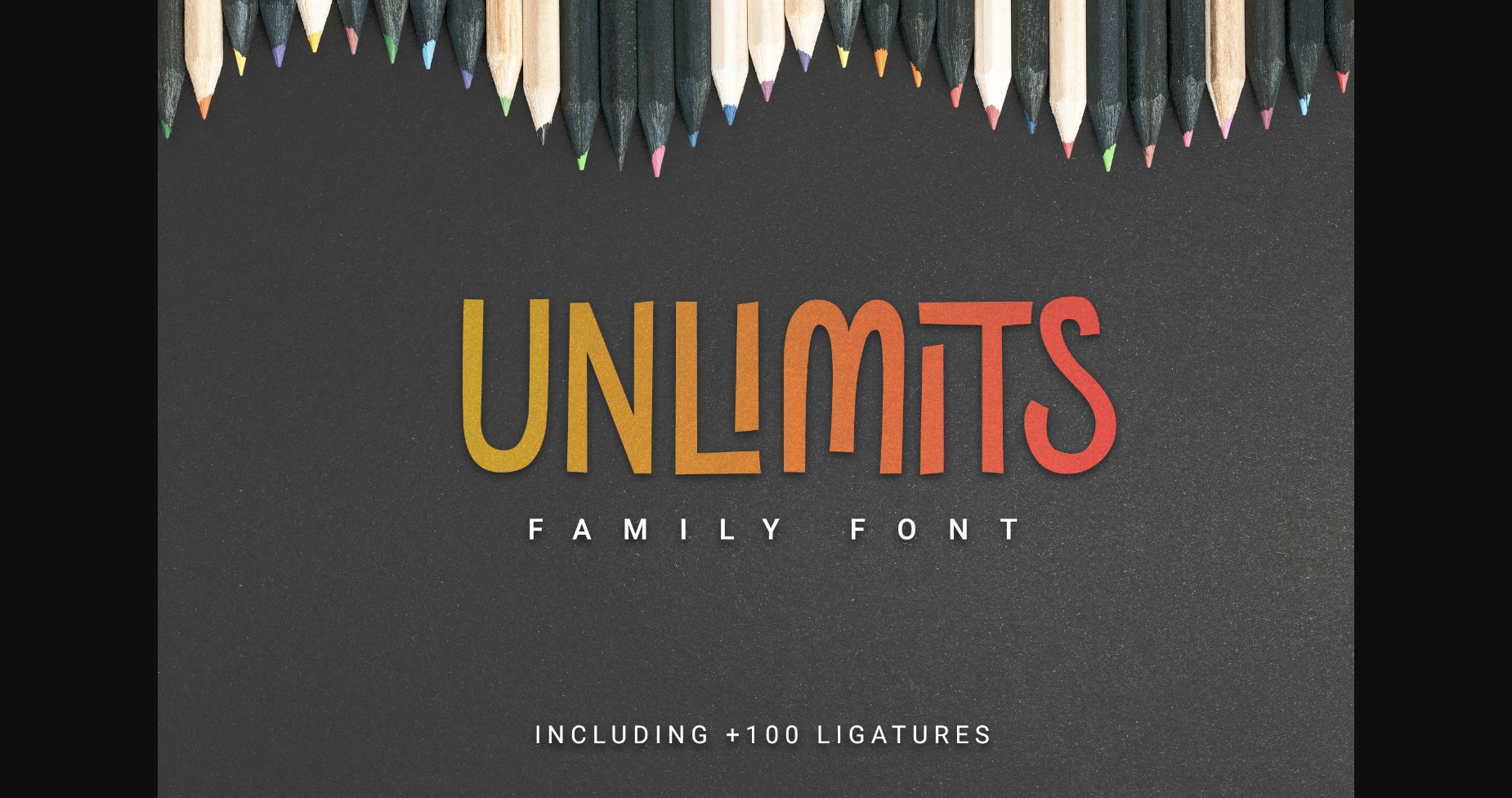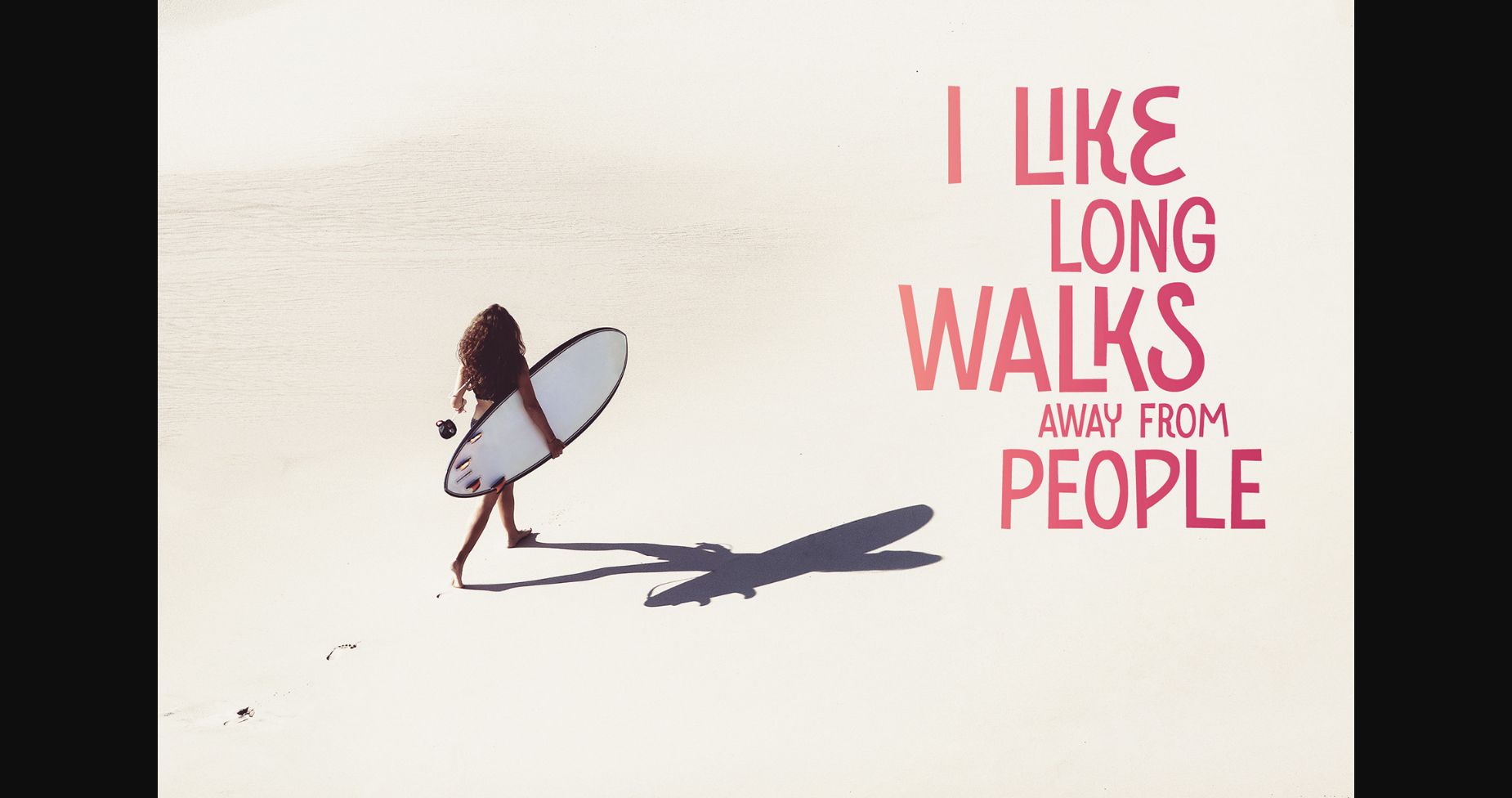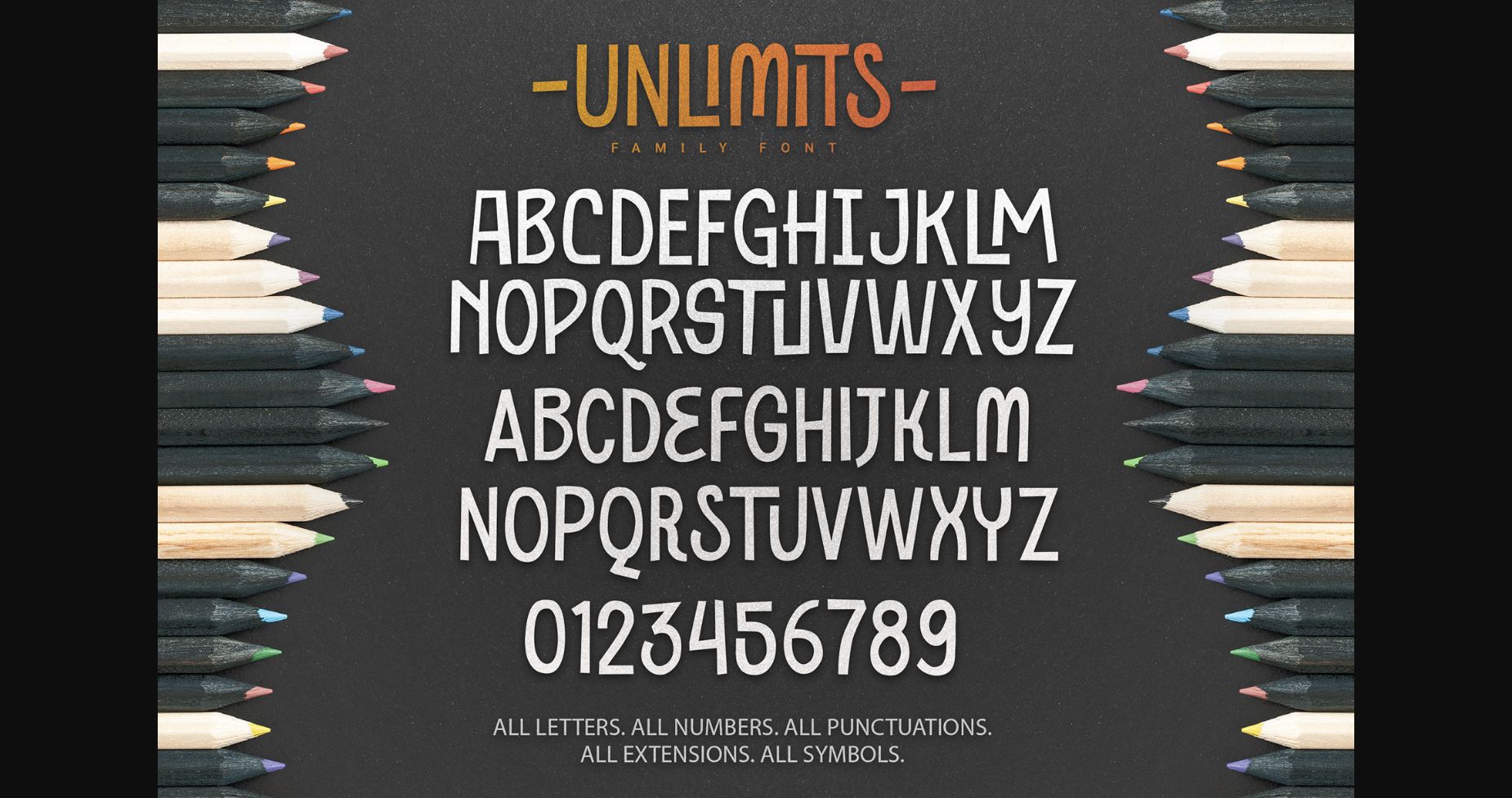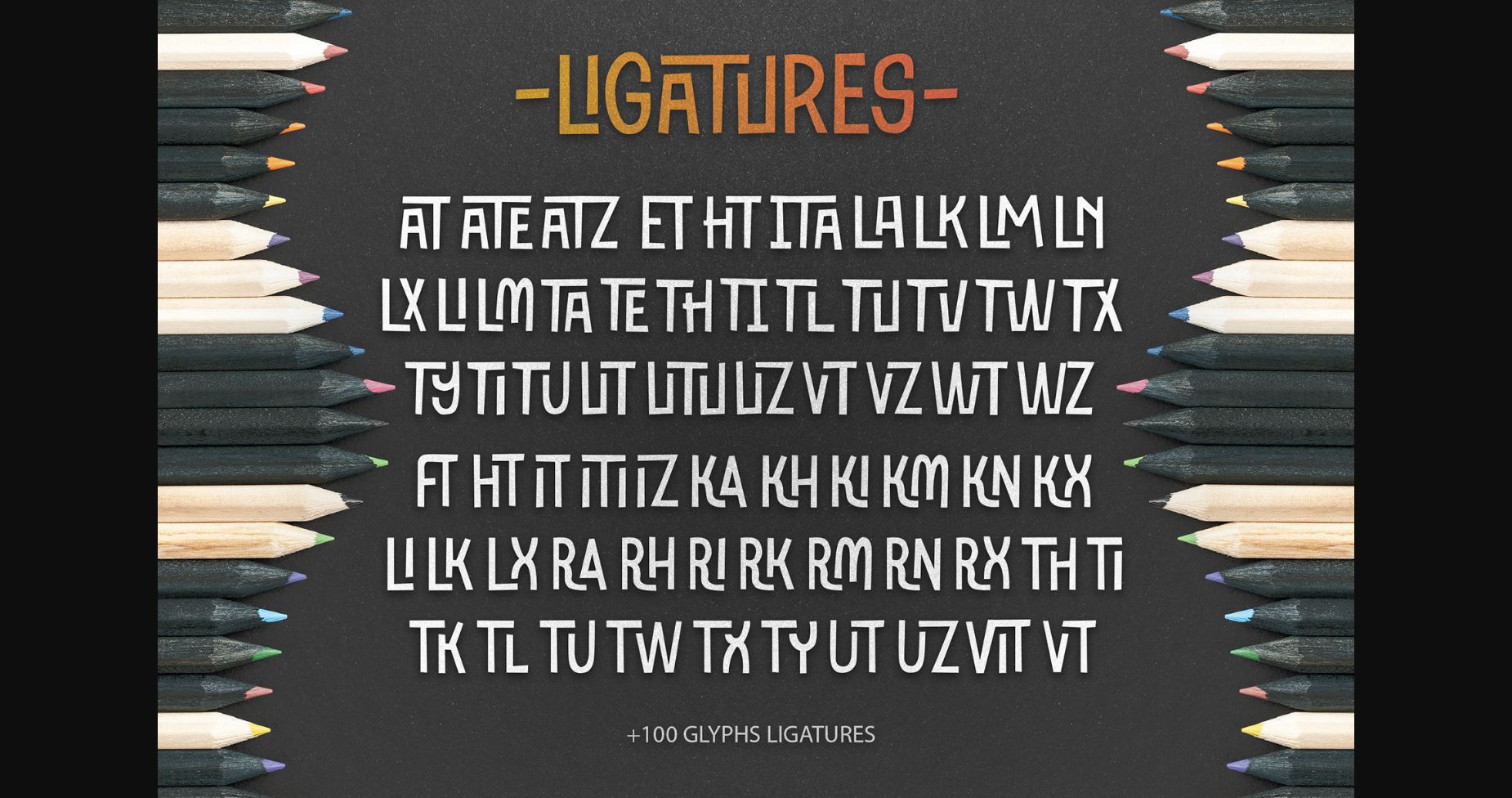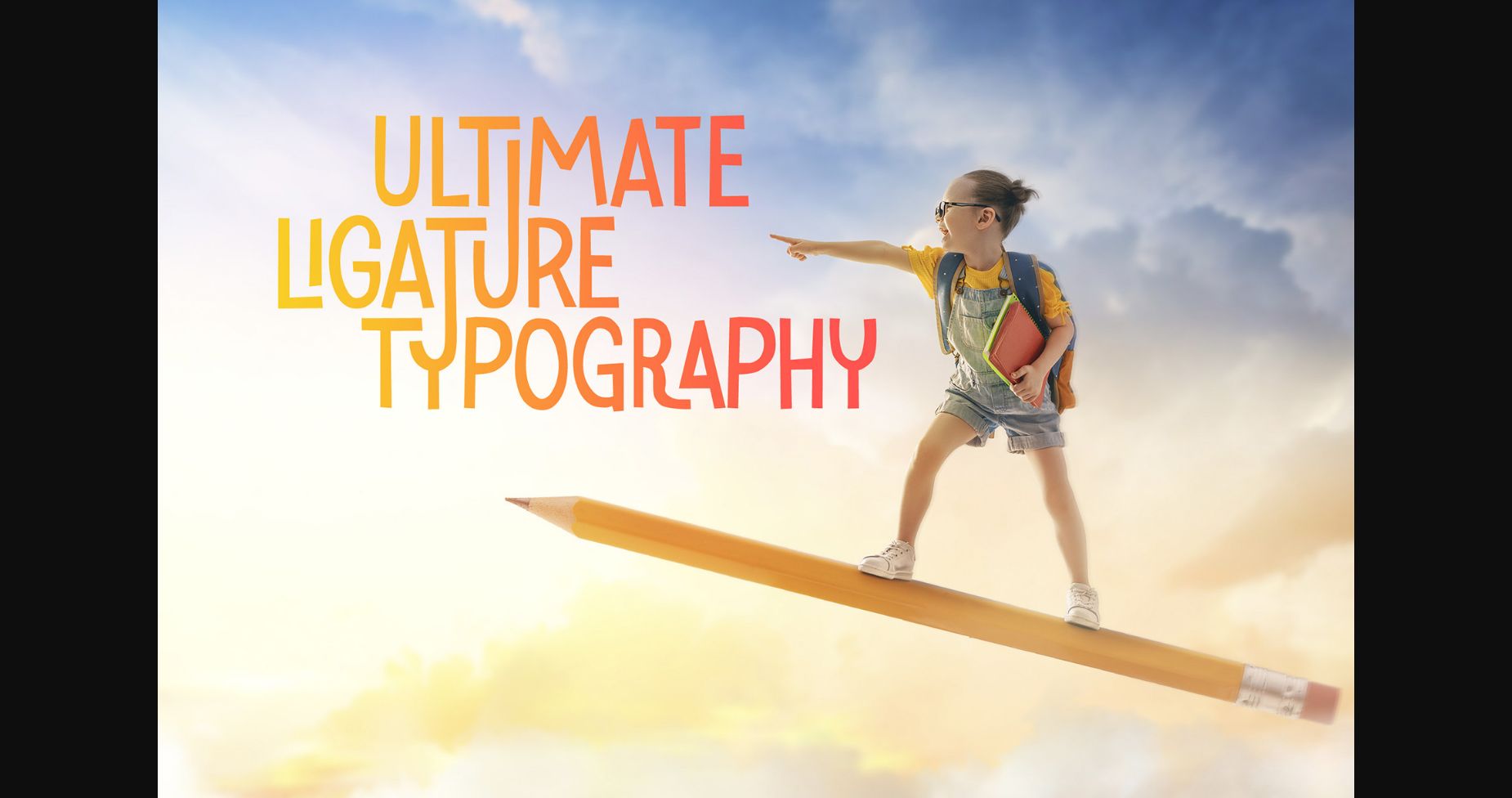
About Unlimits Font
Unilimits is a super cool sans serif font. It has solemn and bold characters that perfectly combine a modern look with a playful and almost youthful appearance. A modern font family to achieve an imperfect and unique result! This font is PUA encoded which means you can access all of the glyphs and swashes with ease!